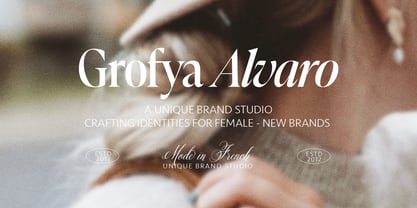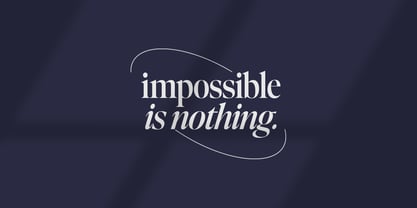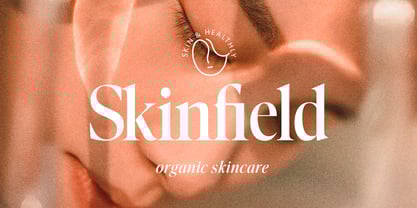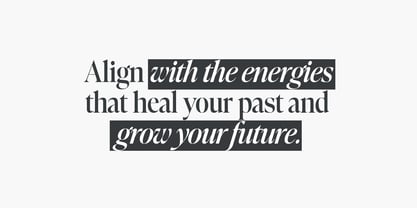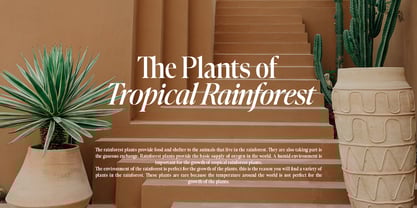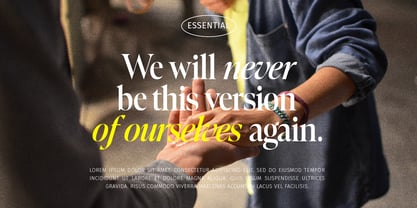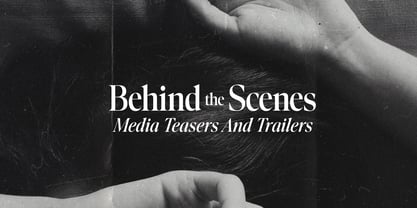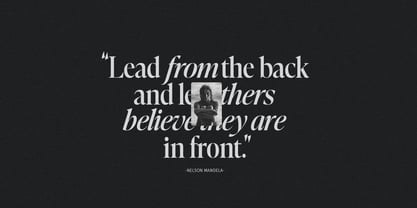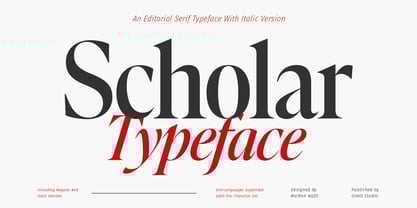
Scholar Font
The Scholar Font is perfect for academic publications, scholarly research papers, university communications, educational textbooks, intellectual journals, prestigious thesis documents, academic conference materials, learned society publications, doctoral dissertations, and distinguished institutional communications.
What makes the Scholar Font so exciting is its masterful embodiment of academic excellence with scholarly sophistication that creates the ultimate typeface for intellectual discourse and educational communications. This distinguished typeface features classical letterforms, scholarly proportions, and academic design principles that establish uncompromising intellectual authority perfect for educational institutions demanding the highest standards of scholarly typography. The font's academic personality and intellectual credibility make it an exceptional choice for universities, researchers, and educational publishers seeking to communicate knowledge, wisdom, and authentic scholarly excellence with timeless academic appeal.
The Scholar Font family includes comprehensive academic options, featuring multiple weights from Light to Bold, condensed variations, and complete italic sets. Each variation maintains the signature scholarly appeal while offering different levels of intellectual presence and academic versatility, providing educators with complete flexibility for creating sophisticated academic hierarchies and scholarly publication systems that honor educational traditions.
The sophisticated academic engineering of Scholar Font demonstrates expert scholarly typography craftsmanship, with each character optimized for perfect readability, intellectual appeal, and visual harmony across all educational contexts. The font's extensive character set includes comprehensive international language support, academic punctuation, scholarly symbols, and educational notation marks, ensuring seamless integration into global academic workflows and scholarly publication systems.
Expertly optimized for both digital and print academic applications, this remarkable font maintains flawless clarity and scholarly presence across all educational formats and academic requirements. From large-scale university signage to detailed research documents, Scholar Font performs exceptionally while preserving its distinctive academic character and intellectual sophistication.